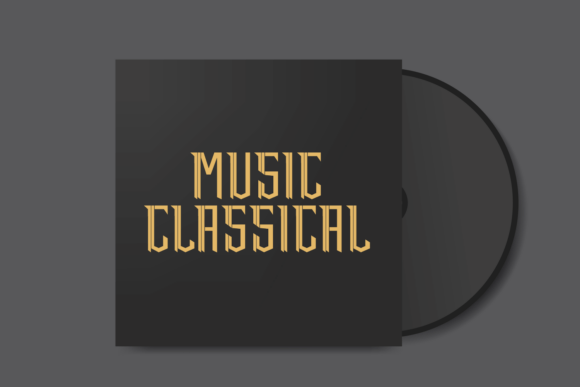
Introducing Black Guard Font: The Epitome of Modern Gothic Typography
In the realm of typography, few fonts manage to capture the essence of both vintage charm and futuristic grit as effectively as Black Guard. This bold, modern gothic typeface is a masterclass in design, boasting sharp angles, vertical emphasis, and a commanding Art Deco influence that sets it apart from its contemporaries. Black Guard is not just a font; it’s a statement—a declaration of strength, elegance, and a fearless approach to design.
The Design Philosophy Behind Black Guard
Black Guard’s design is rooted in the principles of modern gothic typography, with a twist that propels it into the future. Its tall, narrow letterforms are reminiscent of traditional gothic fonts, but with a contemporary edge that makes it instantly recognizable. The vertical emphasis of the font gives it a sense of grandeur and monumentality, as if each letter is a pillar standing tall and proud.
One of the most striking features of Black Guard is its split-line detailing. This distinctive characteristic adds a layer of complexity and sophistication to the font, setting it apart from more straightforward gothic typefaces. The detailing not only adds visual interest but also enhances the font’s thematic coherence, reinforcing its associations with strength and elegance.
Art Deco Influence: A Nod to the Past with a Futuristic Twist
Black Guard’s Art Deco influence is a critical component of its design philosophy. Art Deco, with its geometric shapes, metallic materials, and ornate detailing, is an aesthetic that speaks to luxury, modernity, and innovation. By incorporating elements of Art Deco into Black Guard, the font’s designers have managed to marry the vintage charm of a bygone era with a futuristic grit that feels decidedly contemporary.
This fusion of styles is no easy feat. It requires a deep understanding of both the historical context of Art Deco and the demands of modern design. Black Guard pulls off this balancing act with aplomb, resulting in a font that feels both timeless and cutting-edge.
Use Cases: Where Black Guard Shines
Black Guard’s unique blend of strength, elegance, and modernity makes it an incredibly versatile font. However, there are certain applications where it truly shines. Logos, for instance, are a perfect use case for Black Guard. The font’s commanding presence and distinctive detailing make it ideal for brands looking to make a bold statement.
Posters and gaming titles are another area where Black Guard excels. Its bold, attention-grabbing letterforms are designed to stand out, making it perfect for titles that need to cut through the noise. In the world of gaming, where themes of power, adventure, and fantasy are common, Black Guard’s futuristic grit and vintage charm make it a natural fit.
Fantasy-themed branding also benefits greatly from Black Guard’s unique aesthetic. Whether it’s for a novel, a movie, or a video game, Black Guard can help create an immersive and compelling brand identity that speaks to the fantastical and the extraordinary.
The Power of Typography: How Black Guard Can Elevate Your Brand
Typography is a critical component of brand identity. The right font can elevate a brand, making it more memorable and impactful. Black Guard, with its bold and modern aesthetic, offers brands a unique opportunity to stand out in a crowded marketplace.
Using Black Guard effectively is about more than just slapping the font onto a logo or poster. It’s about understanding the emotional and psychological connotations of the font and leveraging them to reinforce your brand’s message. With Black Guard, brands can convey a sense of strength, sophistication, and innovation—qualities that are sure to resonate with audiences.
Conclusion: Black Guard as a Design Statement
Black Guard is more than just a font; it’s a design statement. It says that you’re not afraid to take risks, to push boundaries, and to challenge the status quo. In a world where design is increasingly important, Black Guard offers a way to stand out, to make a fierce and stylish statement that will not be ignored.
Whether you’re a designer looking for a font that will give your projects an edge, a brand manager seeking to elevate your brand identity, or simply someone who appreciates great design, Black Guard is worth exploring. Its unique blend of vintage charm and futuristic grit, combined with its bold and modern aesthetic, make it a compelling choice for anyone looking to make an impact.
Getting the Most Out of Black Guard
To truly get the most out of Black Guard, it’s essential to experiment with its various features and applications. Don’t be afraid to push the font to its limits, testing how it looks in different sizes, colors, and contexts. Pair Black Guard with complementary fonts to create visual interest and hierarchy, or use it as a standalone font to make a bold statement.
Additionally, consider the context in which Black Guard will be used. While it’s a versatile font, it’s particularly well-suited to certain applications. By thoughtfully deploying Black Guard, you can maximize its impact and ensure that your design communicates the intended message.
As we look to the future of typography, it’s clear that fonts like Black Guard will play a critical role in shaping the visual landscape. With its unique blend of vintage charm and futuristic grit, Black Guard is poised to become a classic of modern typography—a font that will be remembered for years to come as a symbol of innovation and design excellence.